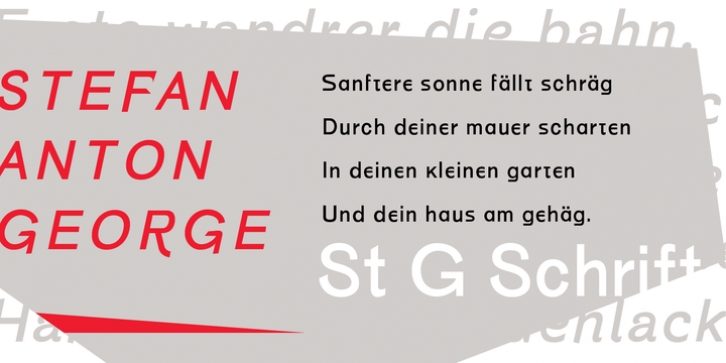
P22 ST.G Shrift is a font series based on the type designs of Stefan George with an italic version designed by Colin Kahn. Stefan George (1868-1933) was a German poet who led the revolt against realism in German literature. All of his works were privately published and the typefaces that were used reflected his neo-classic and anti-industrial (progessive) aesthetics; oftentimes consisting of his own hand lettering designs. The original font was cast in 1907 by a small foundry in Germany and was used primarily for the works of George as well as other books including a monumental edition of Dante’s Divine Comedy.
The ST.G Shrift Fonts contained in this set are derived from 3 known variations of the original roman typeface, St.G., found in various books published in Berlin in the early 20th century. ST.G Shrift One contains the most idiosyncratic characters, while ST.G Shrift Two uses more familiar characters as well as a redesign of characters including the t and the k to be more in keeping with modern san-serif designs.
The OpenType version of the roman contains both one and two and expands on them by including central European characters, small caps, and small caps titling figures. The Small Caps titling figures are derived from the first version of the typeface. Below is a features list (accessible through the type palette in Adobe programs) and their functions:
ST.G Shrift Opentype Features: Small Caps: Changes Lowercase to Small Caps Titling Figures: Changes Uppercase to Titling Caps, and Small Caps to Small Caps Titling Figures Contextual Alternates: Changes Character Set to match ST.G One and changes Small Caps to Titling Small Caps Ornaments: Changes < > and ? (greater, less and bullet) to ornaments
ST.G Shrift Italic is an art nouveau version of the roman. The OpenType version includes central European characters, small caps, titling small caps and ornaments.